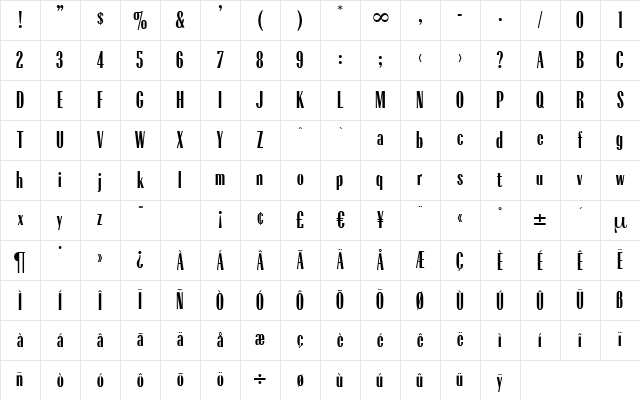
R650-Deco Regular
Design Context for R650-Deco
R650-Deco is a composed and adaptable typeface that performs quietly and consistently across a wide range of design contexts.
Pro Tip: Use R650-Deco in both headline and body roles to test its range before committing to a single application.